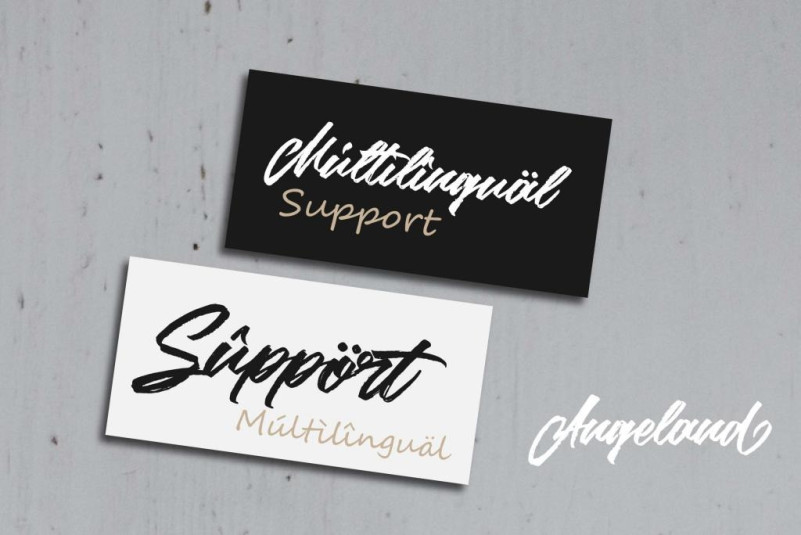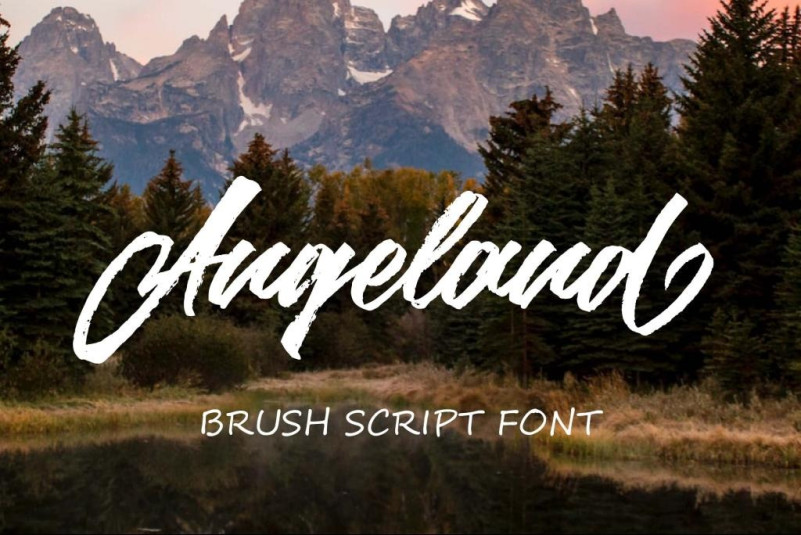
Angeland Font
Angeland Brush Font is a hanbrush font, it can easily be matched to an incredibly large set of projects, so add it to your creative ideas and notice how it makes them stand out!
Uppercase, Lowercase, Numeral & Punctuation
Alternate Letters, Ligature & Swash/Tail
Multilingual & PUA Encoded